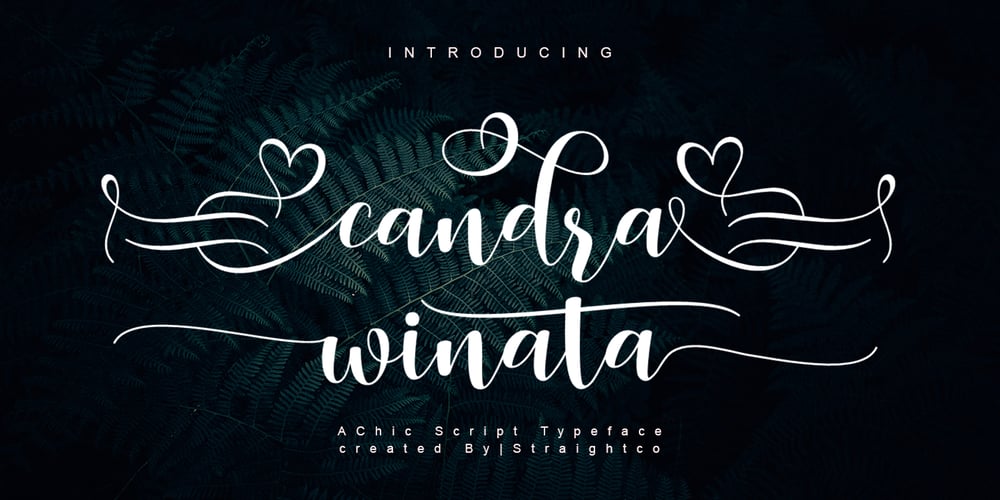
Candra Winata Font Family was designed by Imam Muhajir and published by Straight.Co. Candra Winata contains 1 styles and family package options. candra winata is a subtle and lovely font. This font has a lovely touch of character, perfect for a variety of designs. candra winata features varied baselines, unique smooth lines, and stunning alternatives. Add to your most creative ideas and see how to make art!fastener,Alternative Glyph style (including Uppercase, Lowercase, Numbers & Punctuation) Works on PC & Mac Simple installation.Accessible in Adobe Illustrator, Adobe Photoshop, Adobe InDesign, even works in Microsoft Word.Multilingual SupportThank you ! Hope you enjoy our fonts!